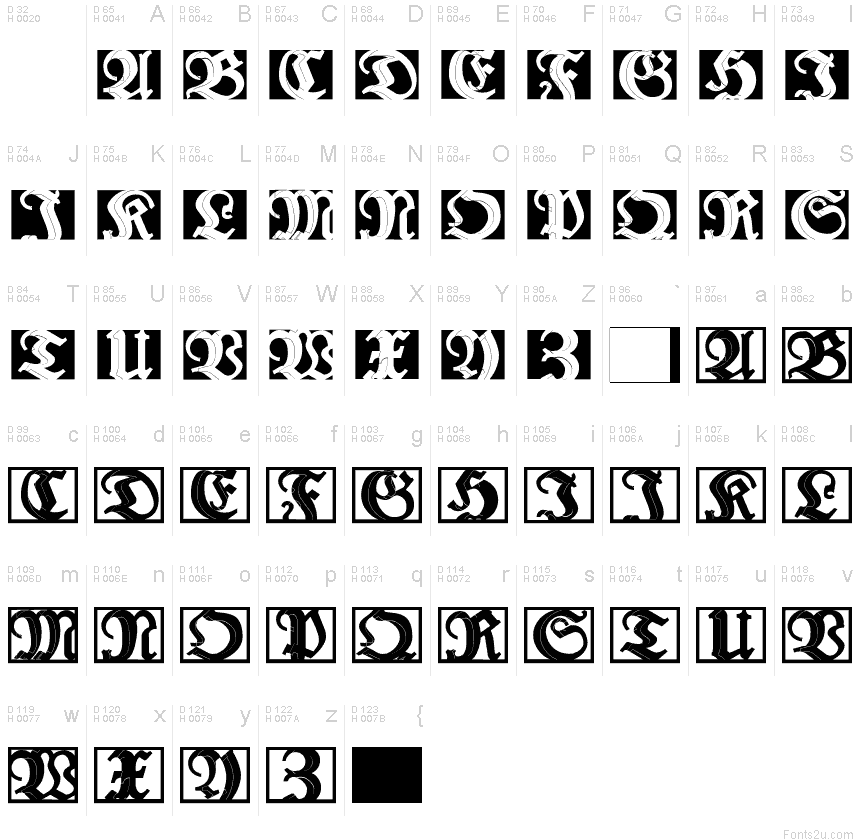
LuFraktorsoBroad by Manfred Klein is a free blackletter initials font built from dense, ornate capitals. Broad curves meet sharp, fractured strokes, and the letters use bold areas of negative space to form medieval shapes.
Its carved, emblem-like forms can become part of heraldic illustration rather than sitting apart as text. They suit fantasy book covers, historical posters, and game graphics. For merchandise and event branding, the recurring angular cuts and sweeping hooks evoke banners, crests, and manuscript decoration.
LuFraktorsoBroad